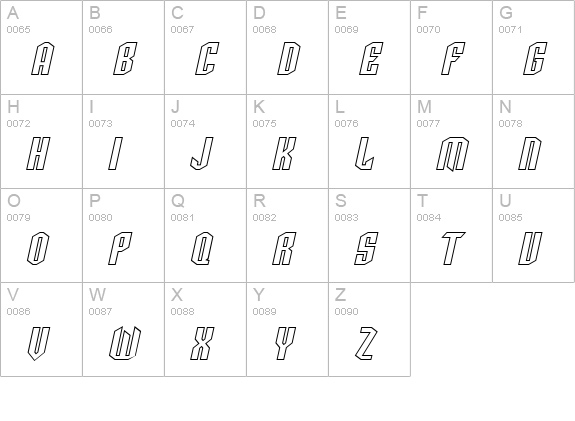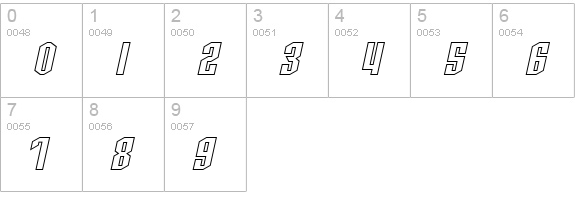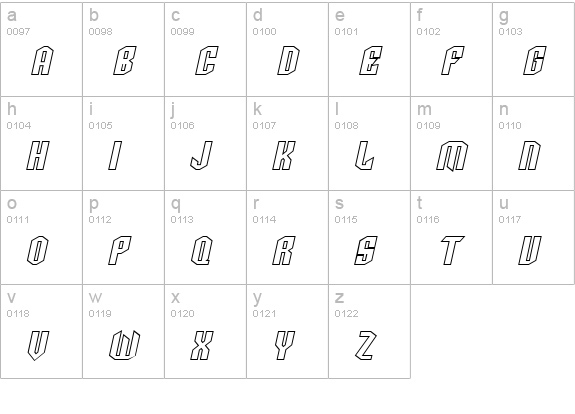
SF Archery Black SC Outline Oblique Font Details
SF Archery Black SC Outline Oblique is a maximum-weight, dramatic, italic variant in the SF typeface family \xE2\x80\x94 well suited to maximum-impact headlines, posters, and packaging.
Introducing SF Archery Black SC Outline Oblique font, a captivating typeface that effortlessly combines modern elegance with a touch of edgy sophistication. This font is perfect for those seeking to make a bold statement while maintaining a sleek and stylish aesthetic. With its unique outline design and oblique angles, SF Archery Black SC Outline Oblique font adds a dynamic and energetic vibe to any project. Whether you're designing a logo, creating eye-catching headlines, or crafting a striking poster, this font will surely command attention and leave a lasting impression. Not only does SF Archery Black SC Outline Oblique font possess a captivating visual appeal, but it also offers exceptional versatility. Its clean lines and well-defined shapes make it highly legible, ensuring readability across various mediums and sizes. From digital platforms to print materials, this font adapts effortlessly to any design context. One of the most remarkable aspects of SF Archery Black SC Outline Oblique font is that it is freely available to download at FontsMarket.com. This means that you can easily access this stunning font and incorporate it into your creative endeavors without any hassle. Whether you're a professional designer or a passionate enthusiast, the accessibility of this font allows you to unleash your creativity and elevate your projects to new heights. So why wait? Embrace the captivating allure of SF Archery Black SC Outline Oblique font and let your designs stand out from the crowd. Download it today at FontsMarket.com and embark on a journey of limitless creativity.